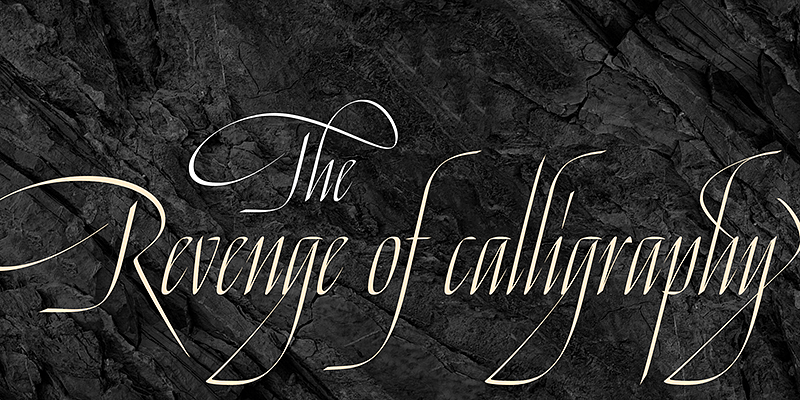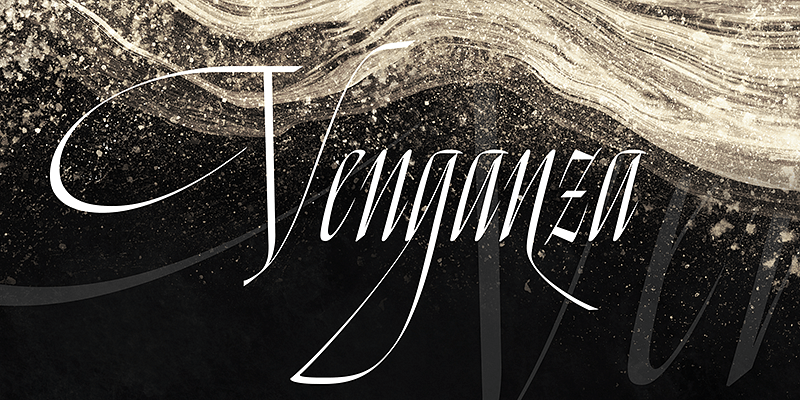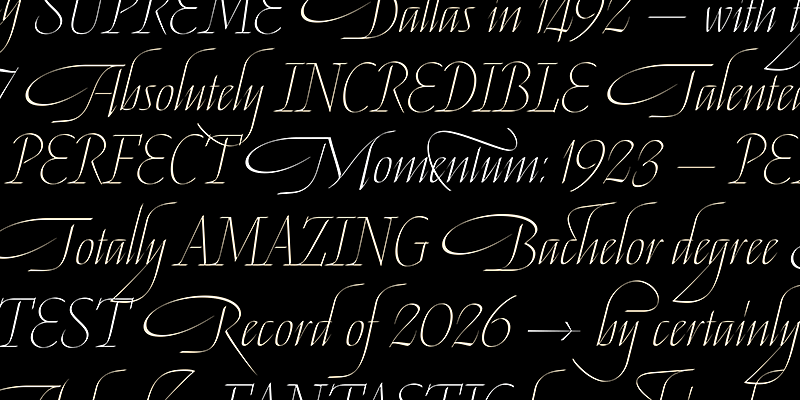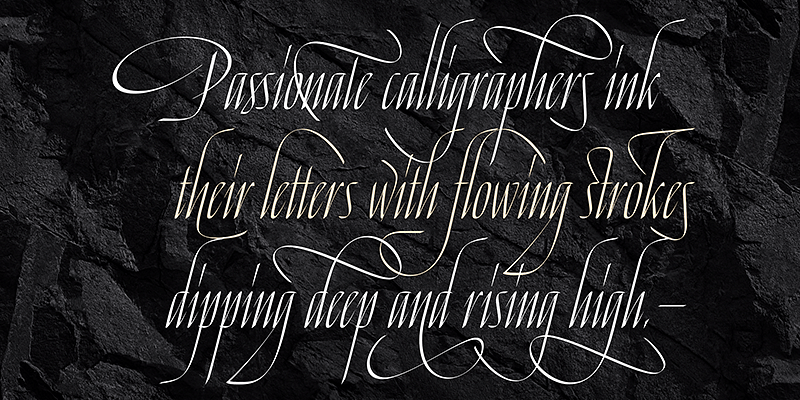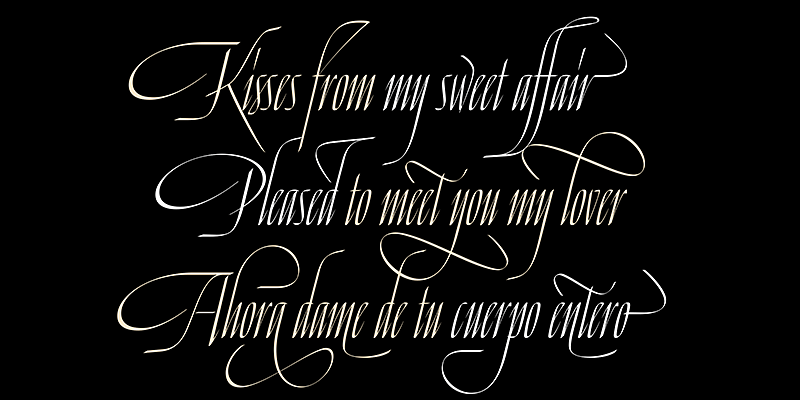
Venganza is a calligraphic font family filled with elegant flourish and syncopated precision. Based on the Chancery script, it is an exploration in angled stems, exaggerated verticality, extreme stroke contrast, and sweeping curves. The long descenders and high-arching ascenders give the typeface a visual breathing space between tension and release—a controlled flamboyance. Venganza is well-suited for delivering visual suspense and high drama to book covers, luxury branding, film posters, and editorial layouts.
Sproviero Type has created an award-winning catalog of intricate, beautiful, and modern typefaces, leaving no detail untouched. Type designer Maximiliano Sproviero applies his passion for calligraphy and lettering into a striking collection of individual typefaces that are fantastically decorated, imaginatively swashed, and breathtakingly original. Whatever the product or media, the fonts from Sproviero Type will help set the stage for your thoughts and ideas to be transformed into reality.